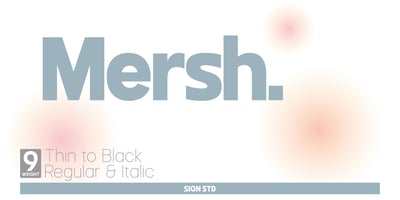
Mersh Font Family was designed by Sugi Yanto and published by Sign Studio. Mersh contains 18 styles and family package options. Mersh is a type system that provides a wide range of options for any design project. The typeface comes with 9 weight in both regular and italic styles. Mersh is the result of exploring minimalist design trends and classic typography. Have the ability to be a display font and writing text well. Mers sans serif family is a very versatile font suitable for headlines, posters, logotypes, etc.